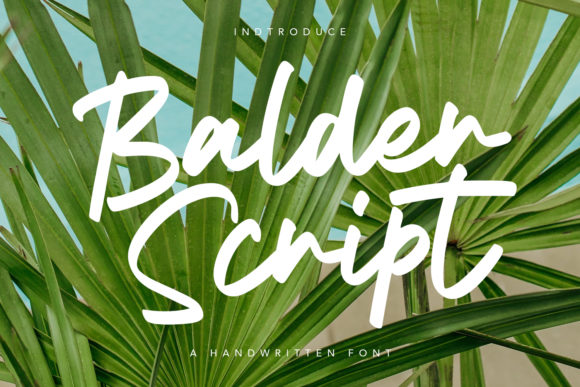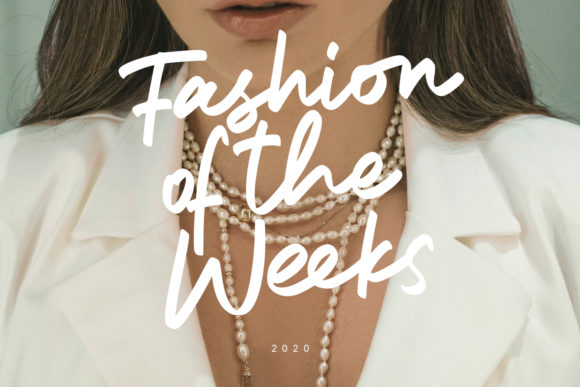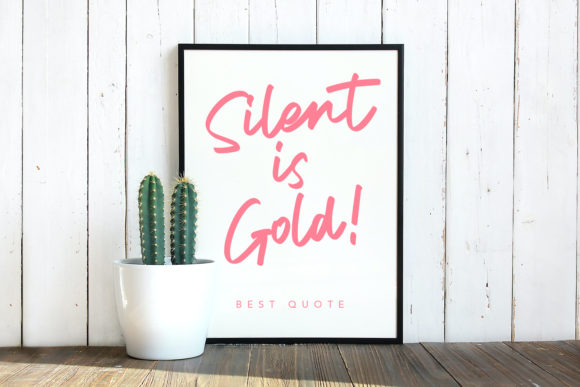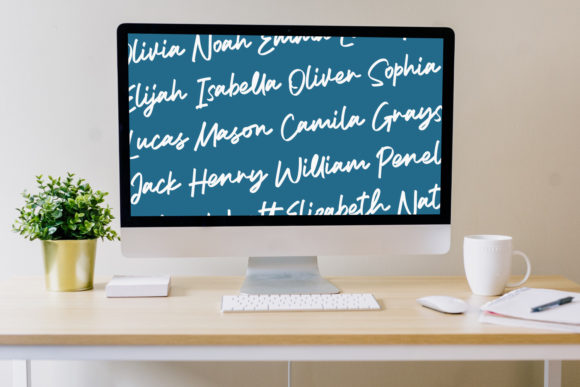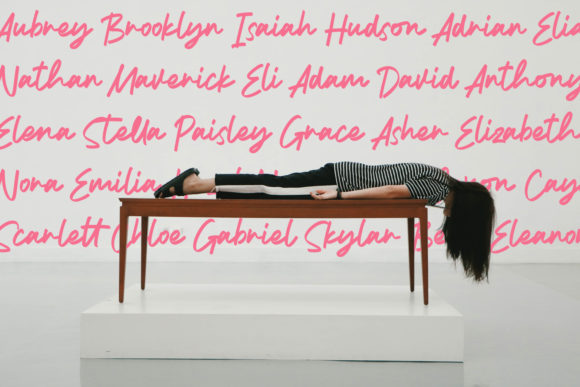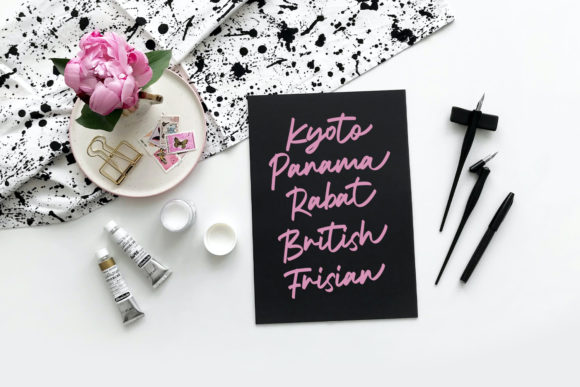
Balder Script Font
About Balder Script Font
Balder Script is a stunning font, created with an outstanding brush pen. It looks gorgeous on wedding invitations, thank you cards, quotes, greeting cards, logos, business cards and every other design which needs a handwritten touch.